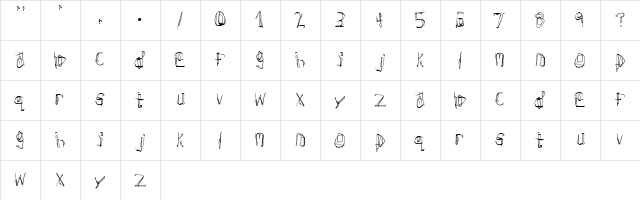
Donner Regular
Design Context for Donner Typeface
Donner is a composed and adaptable typeface that performs quietly and consistently across a wide range of design contexts.